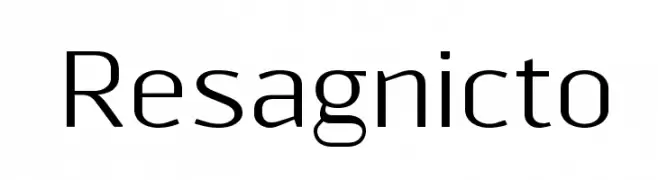
( Fonts by Rodrigo German - RASDESIGN )
A playful collection of hand-drawn dingbats featuring whimsical designs.
( Fonts by Rodrigo German - RASDESIGN )
A playful, irregular font with a hand-drawn, whimsical style.
( Fonts by www.typodermicfonts.com - Ray Larabie )
A rugged, edgy font with jagged edges and a hand-drawn appearance.
( Fonts by site.xavier.edu/polt/typewriters/ - Richard Polt )
A vintage, typewriter-style font with a bold, worn appearance.
( Fonts by Grzegorz l - www.glukfonts.pl )
A modern, geometric sans-serif font with clean lines and uniform strokes.